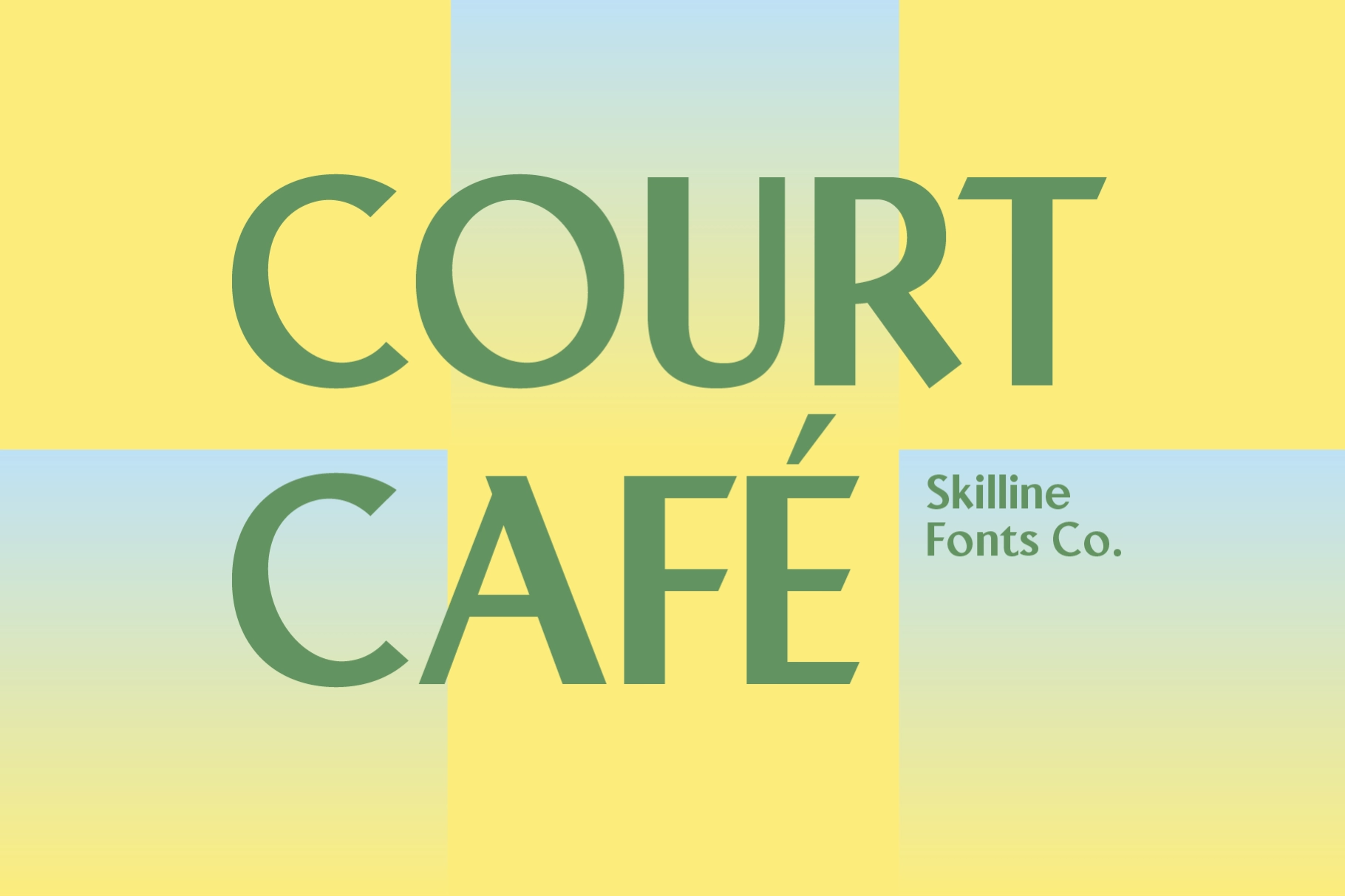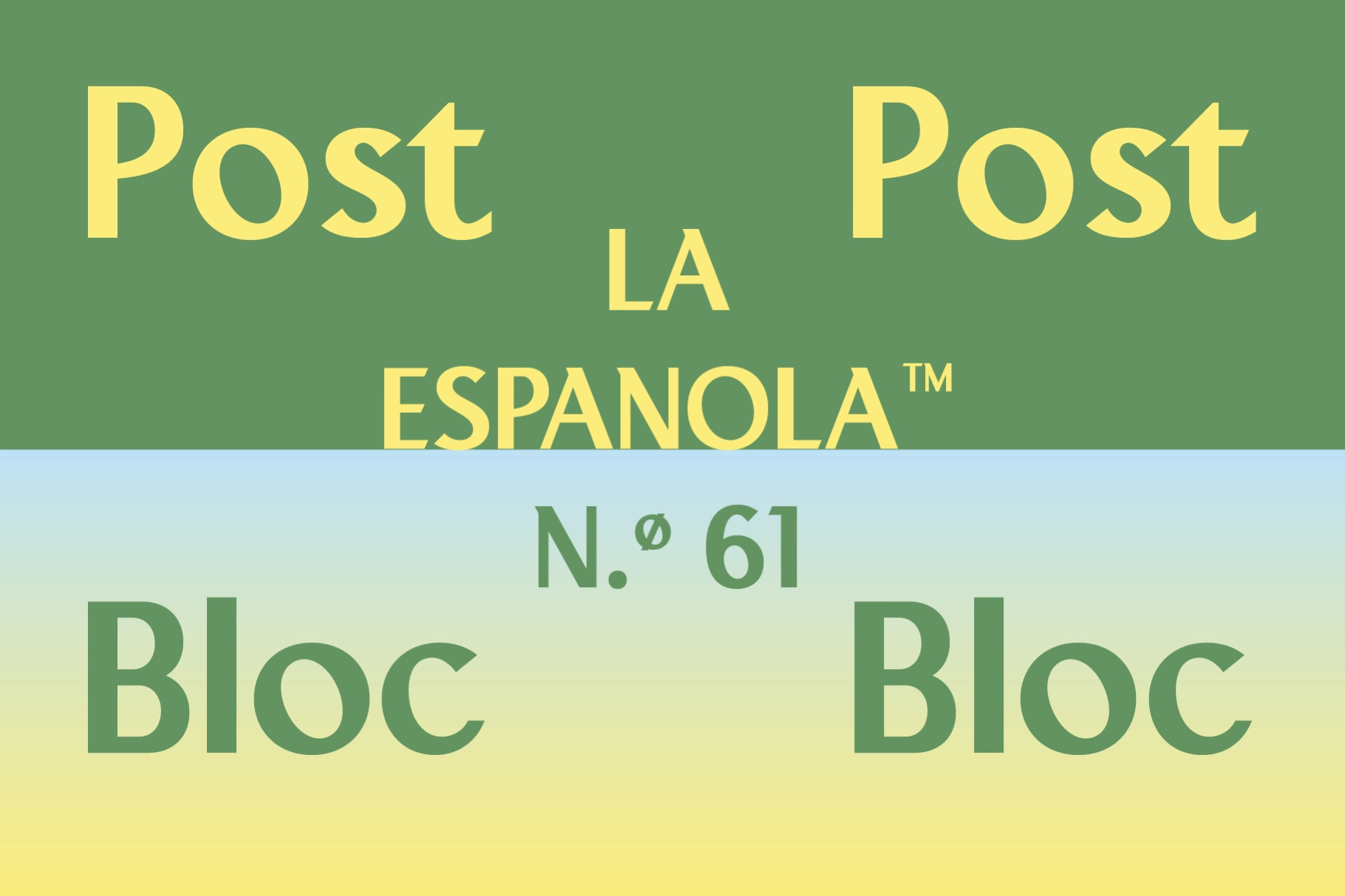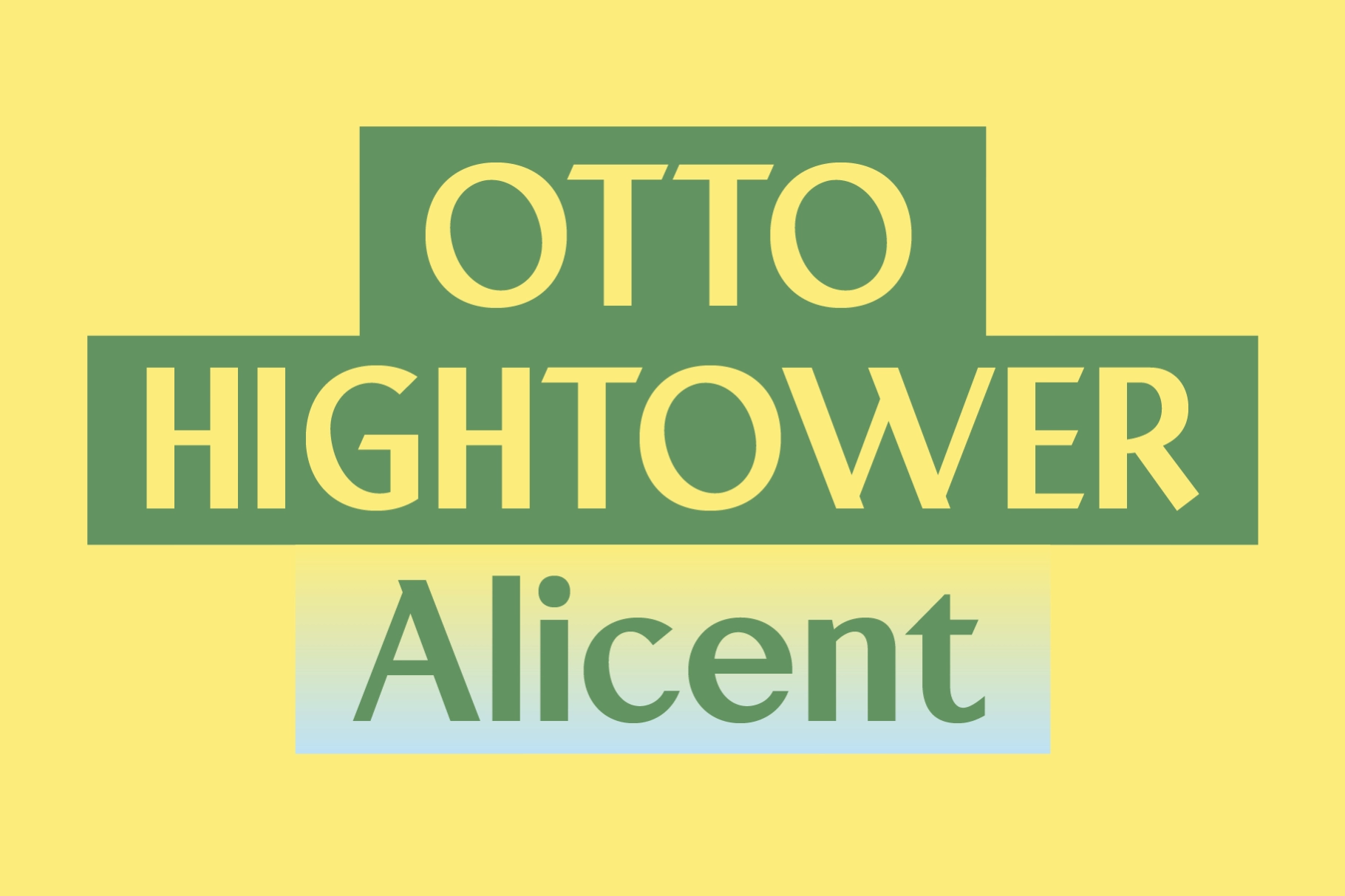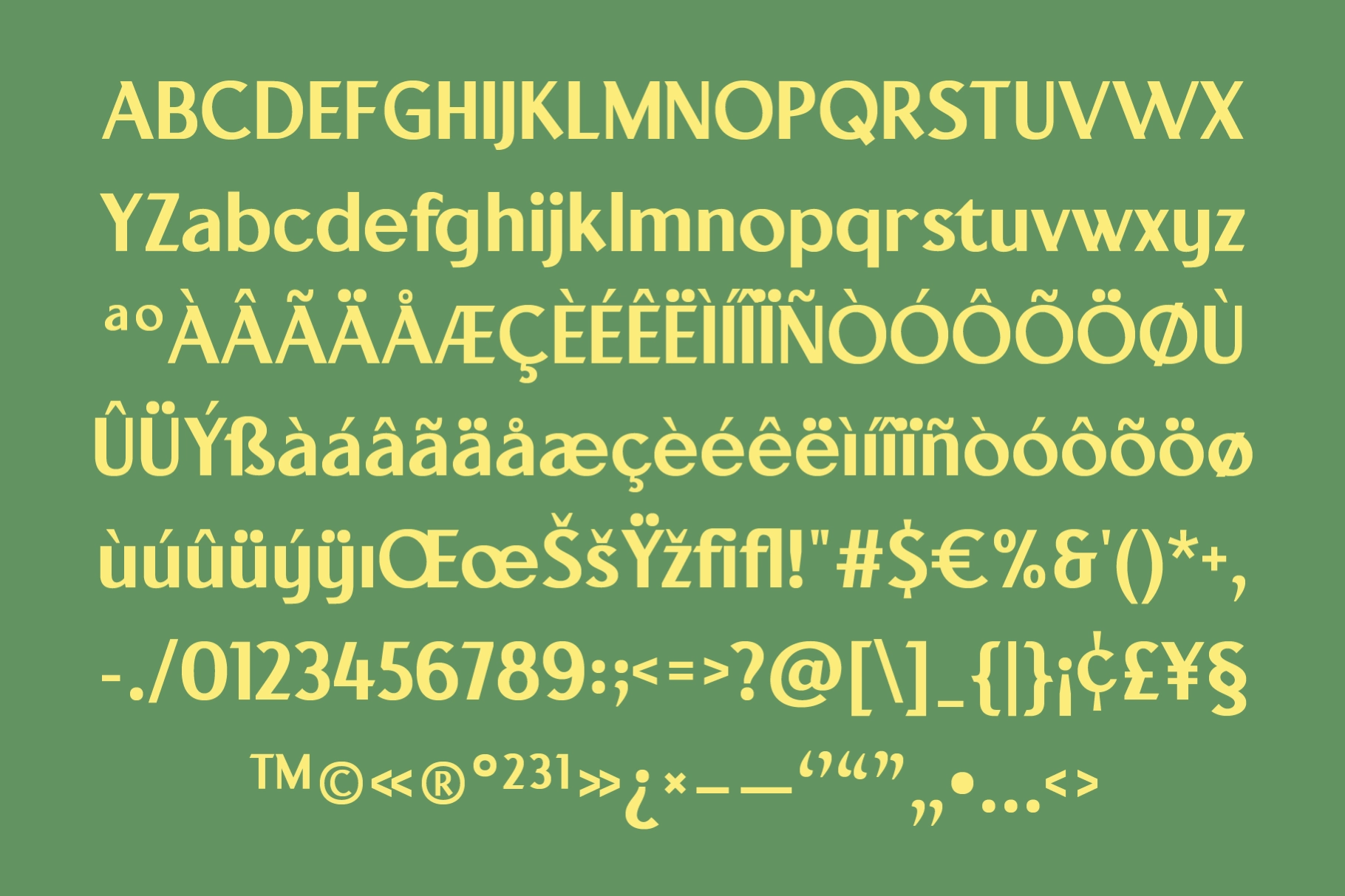
Court Cafe - Geometric Sans Serif Font
SFC Court Cafe
Court Cafe runs on circular bowls and a light stroke contrast between the stems and curves, with a straightforward geometric sans serif construction softened by slightly warmer terminals. The rhythm stays steady from cap height down to the x-height, so long lines of text hold together without visual noise.
The proportions carry equally well in short headlines and longer body copy, so a single weight covers both jobs without switching styles. Use it for branding systems, editorial layouts, app interfaces, packaging type, and signage.
- Uppercase & lowercase;
- Numerals, punctuation & symbols;
- Ligatures, ordinals, and superscript;
- 229 glyphs total